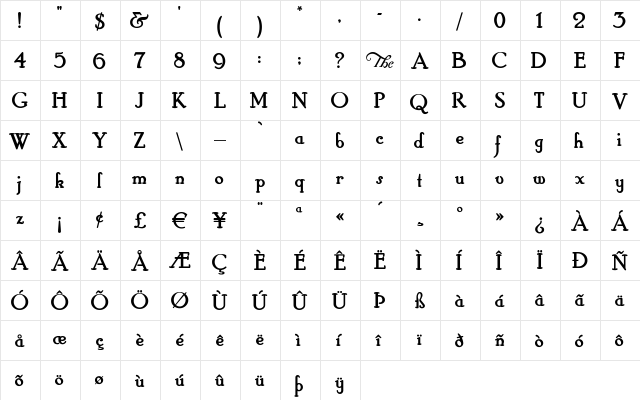
HobbyHorse Regular
Design Context for HobbyHorse Typeface
HobbyHorse offers clean, dependable letterforms without strong stylistic allegiance, making it a practical choice for designers who need flexibility.